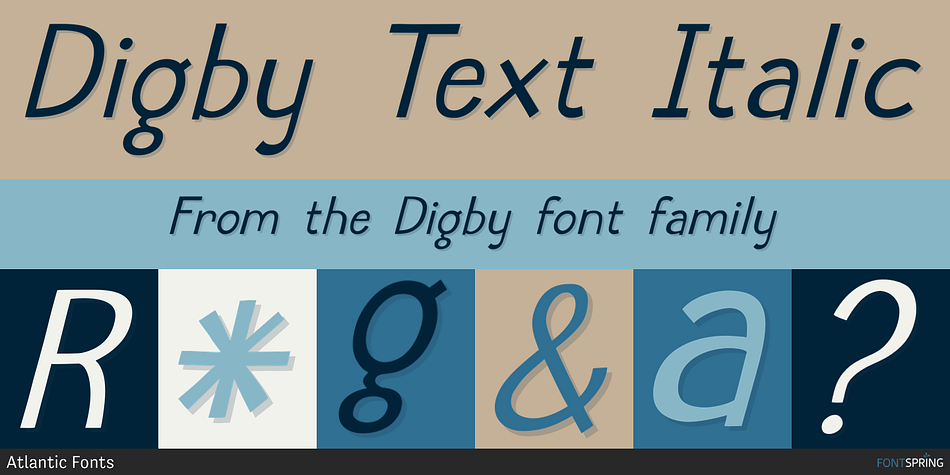
Digby Text Italic
Designed by Amy Dietrich, Digby is a display, hand drawn and kids font family. This typeface has twelve styles and was published by Atlantic Fonts.
Digby is friendly, honest and active.
Digby is friendly, honest and active. Digby family includes twelve hand-drawn fonts. They work well together, in fact Digby Line Thin fits nicely over Digby Regular. All have a generous set of double letter ligatures and are designed to work great as all-caps.